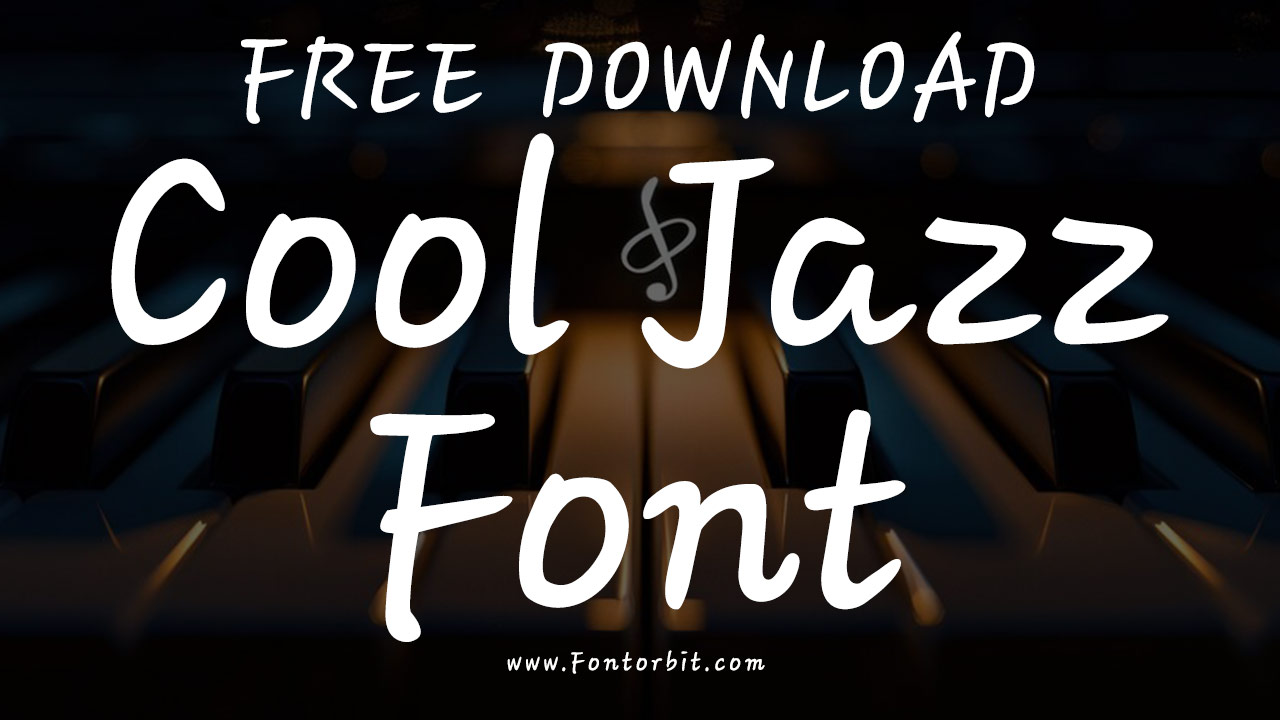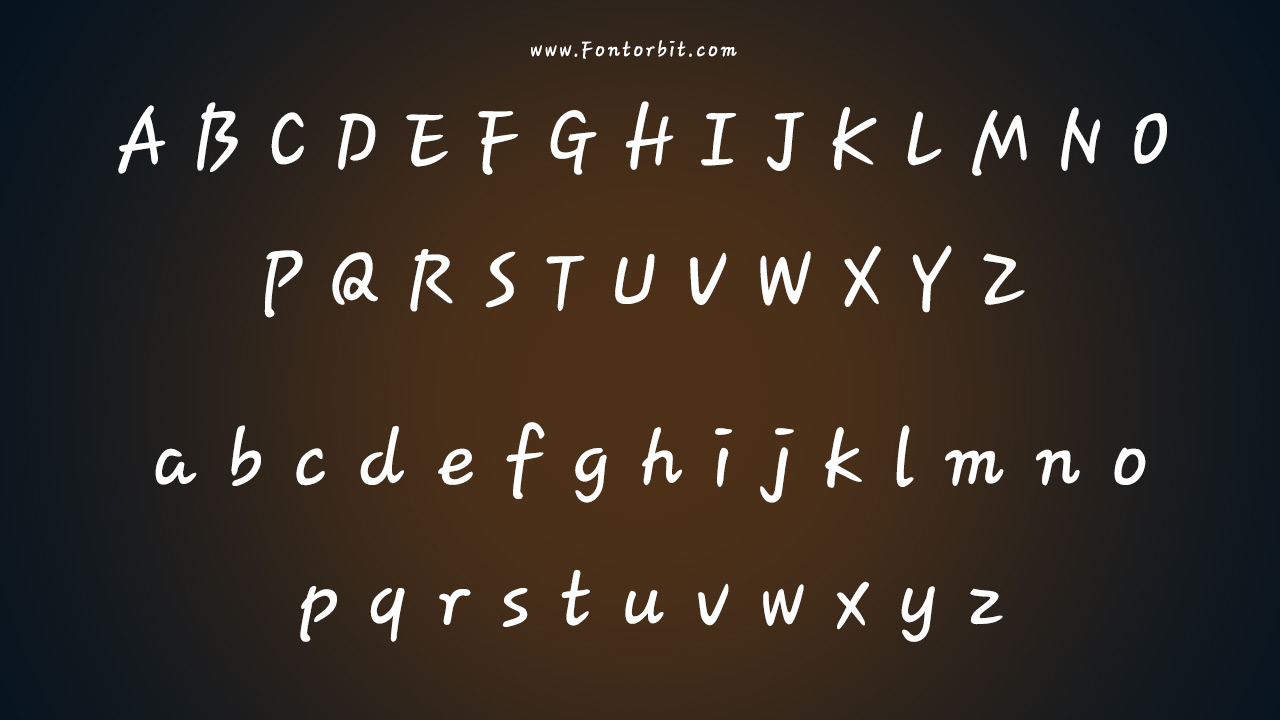
Cool Jazz Font is a unique and elegant sans serif typeface created by Yoon Design Inc. This font is designed to make a stylish statement in both text and display uses, offering a lively yet comfortable look.
With three distinct styles—Regular, Italic, and Condensed—Cool Jazz is perfect for various design applications, including headlines, posters, and branding.
Type Of The Cool Jazz Font (Font Family)
Cool Jazz Font falls into the category of script typefaces, known for their smooth and soft letterforms. Specifically, it is characterized by its artistic sophistication and calligraphic simplicity. The Cool Jazz font family includes:
- Cool Jazz Regular
- Cool Jazz Italic
- Cool Jazz Condensed
Cool Jazz Font is ideal for adding a distinctive touch to a wide range of projects. Its elegant design makes it well-suited for:
- Flyers
- Stylish overlays on images
- Merchandise graphics
Cool Jazz Font is a contemporary script typeface perfect for a variety of creative uses. It’s ideal for making headlines stand out, enhancing branding materials, and adding a stylish touch to any design project. Whether for personal or commercial use, Cool Jazz is a versatile choice that brings a fresh, modern edge to your work.
1.What Are The Characteristics Of Cool Jazz Font?
Cool Jazz Font is a script typeface with soft, smooth letterforms and a modern, elegant design. It features three styles: Regular, Italic, and Condensed, making it versatile for various design needs.
2.What Are The Considerations For Using Cool Jazz Font In Branding?
Ensure the font aligns with your brand’s aesthetic. Cool Jazz Font is ideal for brands seeking a stylish and contemporary look, but it may not suit traditional or ornate themes.
3.What Are The Limitations Of Using Cool Jazz Font In Design?
Its modern and artistic design might not convey a sense of formality or tradition, making it less suitable for designs requiring a more classic or serious look.
4.What Are The Differences Between Cool Jazz Font And Other Script Fonts?
Cool Jazz Font features smooth, elegant letterforms with a lively quality, while other script fonts may exhibit more ornate or varied characteristics.
5.What Do You Want From A Cool Jazz Font?
Users typically seek a modern, versatile typeface that provides a stylish and distinctive look for various design projects, from branding to promotional materials.
6.How To Create A Distressed Effect With Cool Jazz Font?
If desired, use graphic design software to apply a distressed texture or effect to give the font a worn or vintage appearance.
8.What Styles Are Popular In Cool Jazz Fonts?
Modern, elegant, and script styles are popular, offering a sophisticated look suitable for various design applications.